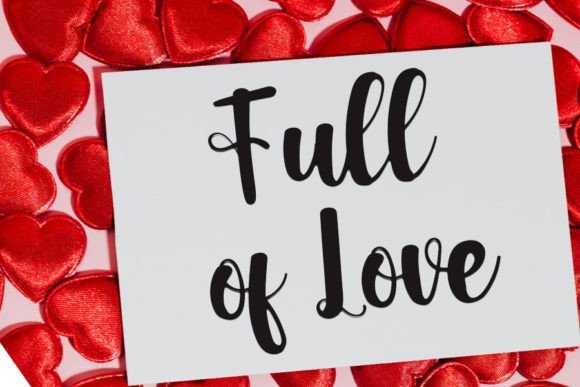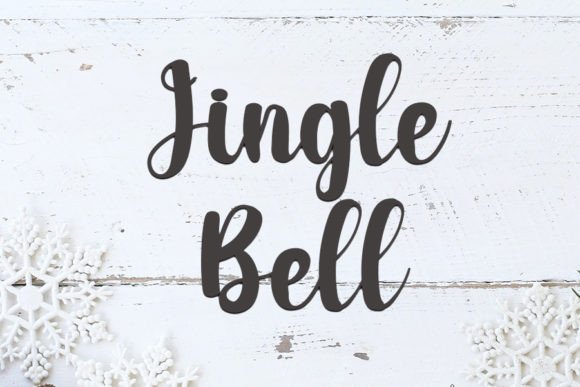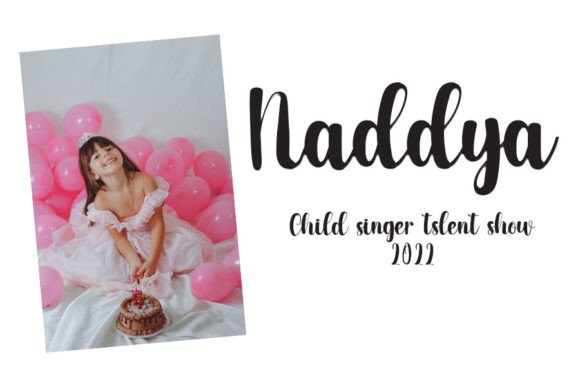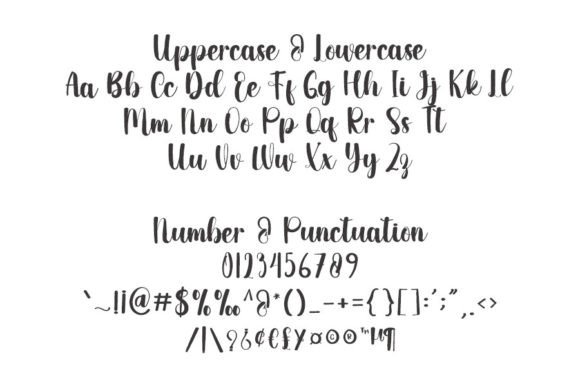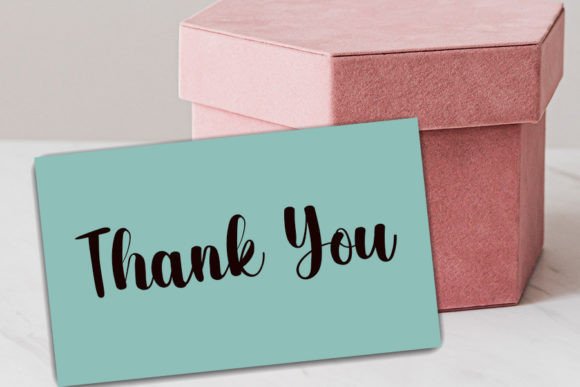
Introducing Cheerful Face Font: Elevate Your Designs with a Modern Handwritten Style
Are you on the hunt for a font that adds a touch of personality and sophistication to your projects? Look no further than Cheerful Face Font, a cool handwritten font that brings a modern vibe and spotless form to your designs. Inspired by classic calligraphy, this beautifully crafted font strikes the perfect balance between elegance and playfulness.
The Story Behind Cheerful Face Font
Cheerful Face Font was designed with the intention of creating a typeface that is neither too thin nor too thick, but rather balanced and varied. This careful consideration results in a font that is versatile and can be used across a wide range of projects, from branding and advertising to packaging and digital media.
The font’s modern vibe is a nod to the evolution of calligraphy, which has been a cornerstone of beautiful design for centuries. By combining traditional techniques with contemporary style, Cheerful Face Font offers a fresh take on handwritten typography.
Key Features of Cheerful Face Font
- Balanced and Varied: The font’s carefully crafted strokes are designed to be neither too thin nor too thick, creating a harmonious visual flow.
- Modern Vibe: Cheerful Face Font boasts a contemporary style that is perfect for designers looking to add a touch of sophistication to their work.
- Spotless Form: The font’s clean and precise lines ensure that it remains legible and visually appealing, even at smaller sizes.
- Inspired by Classic Calligraphy: Cheerful Face Font pays homage to the art of traditional calligraphy, while offering a modern twist.
Use Cases for Cheerful Face Font
Cheerful Face Font is an incredibly versatile typeface that can be used in a wide range of design projects. Here are just a few ideas to get you started:
- Branding and Identity: Use Cheerful Face Font to create a unique and memorable brand identity that sets you apart from the competition.
- Advertising and Marketing: The font’s modern vibe and elegant style make it perfect for use in advertising and marketing materials, such as brochures, flyers, and social media graphics.
- Packaging Design: Add a touch of personality to your product packaging with Cheerful Face Font, which is sure to stand out on store shelves.
- Digital Media: The font’s clean and legible design makes it ideal for use in digital media, such as website headers, blog posts, and email newsletters.
Why Choose Cheerful Face Font?
With so many fonts to choose from, why should you choose Cheerful Face Font for your next project? Here are just a few reasons:
- Unique Style: Cheerful Face Font offers a distinctive and stylish alternative to more traditional typefaces.
- Highly Versatile: The font’s balanced and varied design makes it suitable for use in a wide range of projects and applications.
- Easily Readable: The font’s spotless form and clear lines ensure that it remains legible, even at smaller sizes.